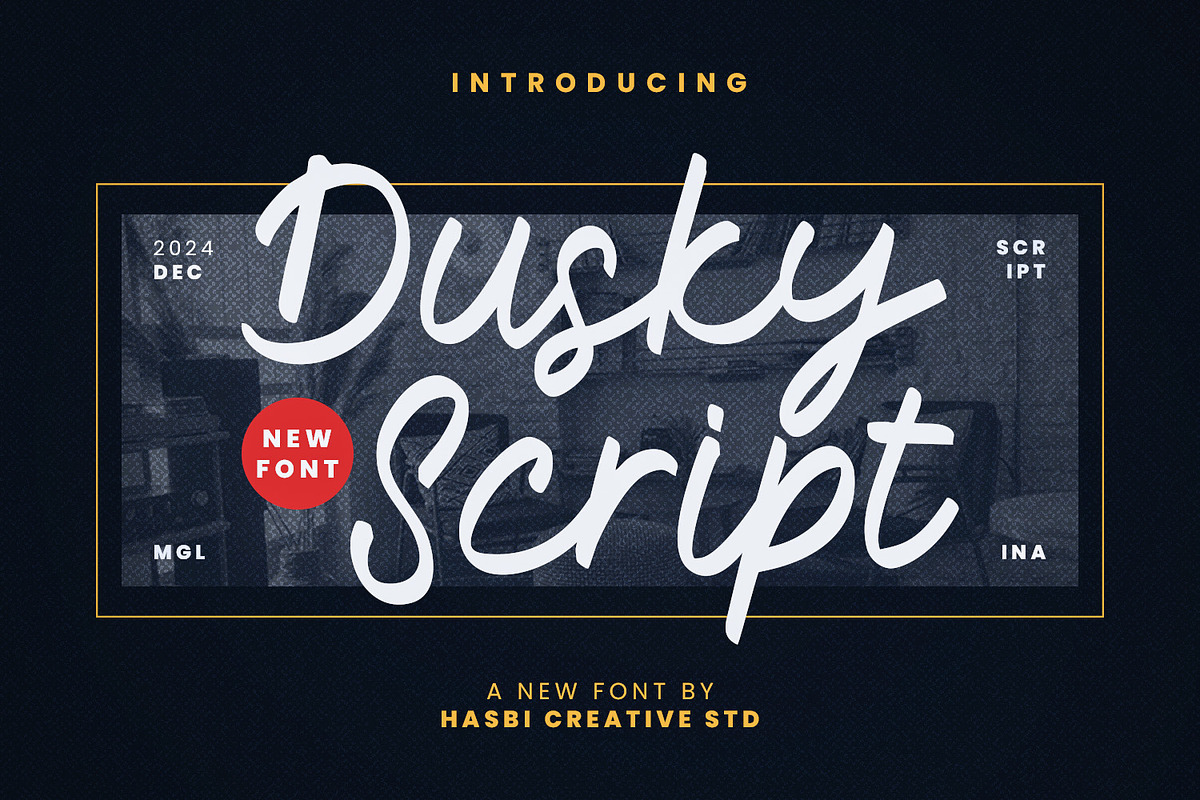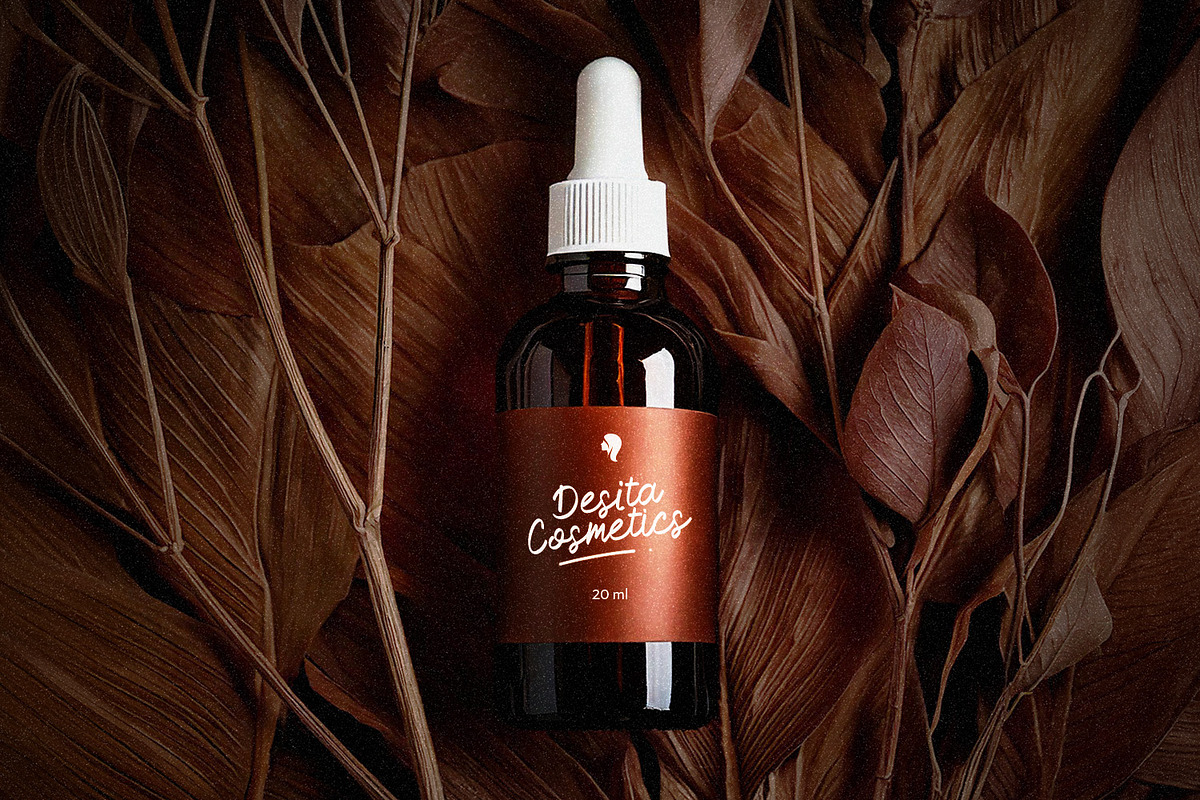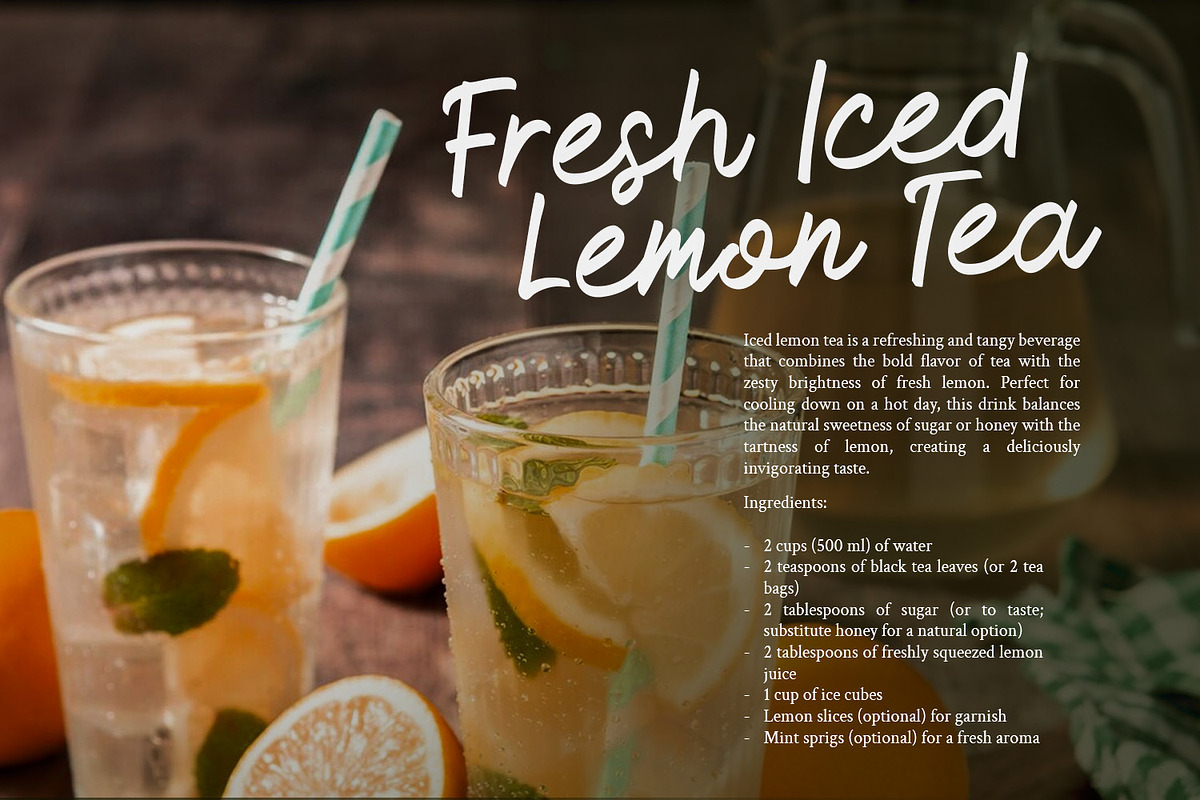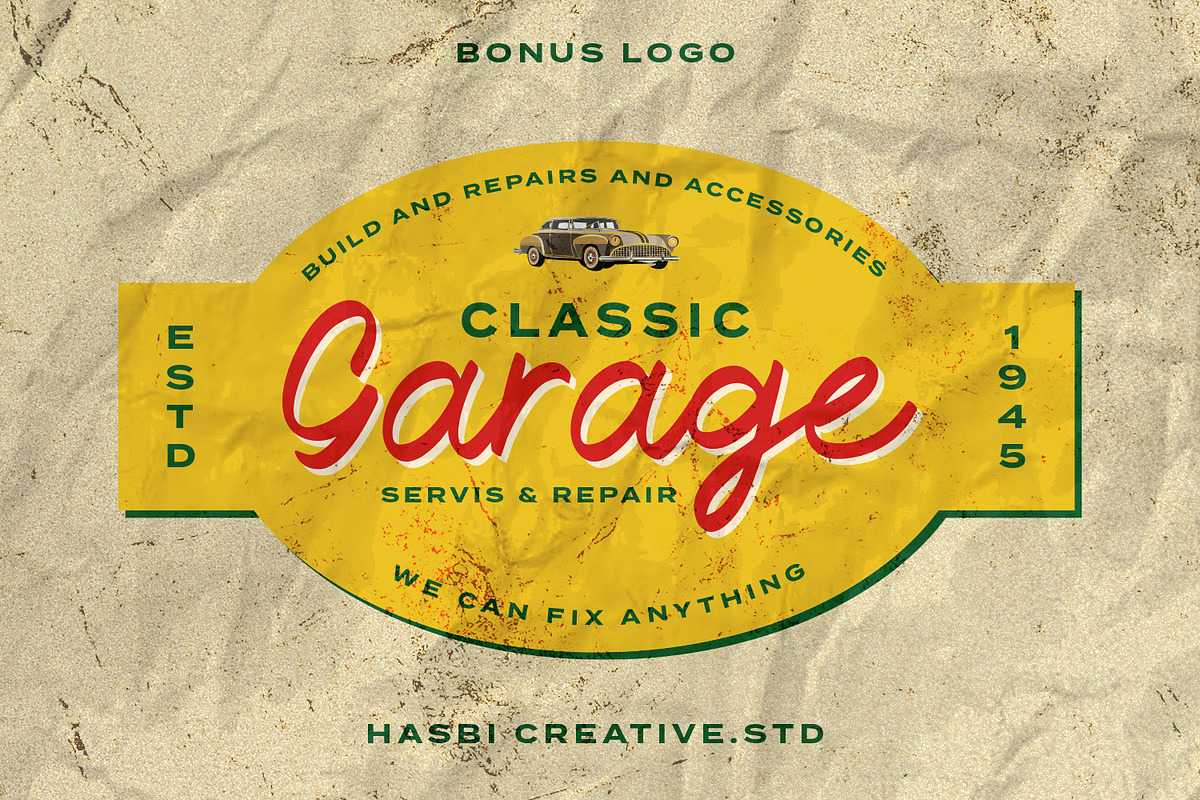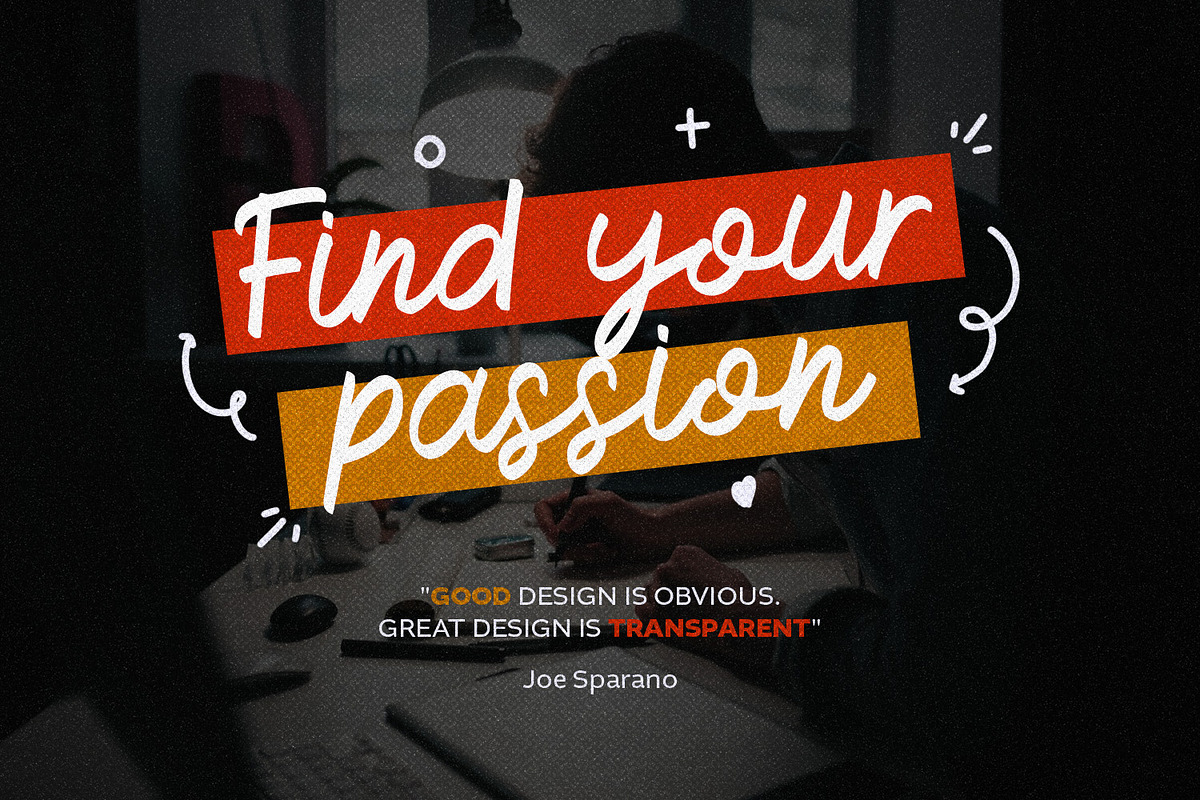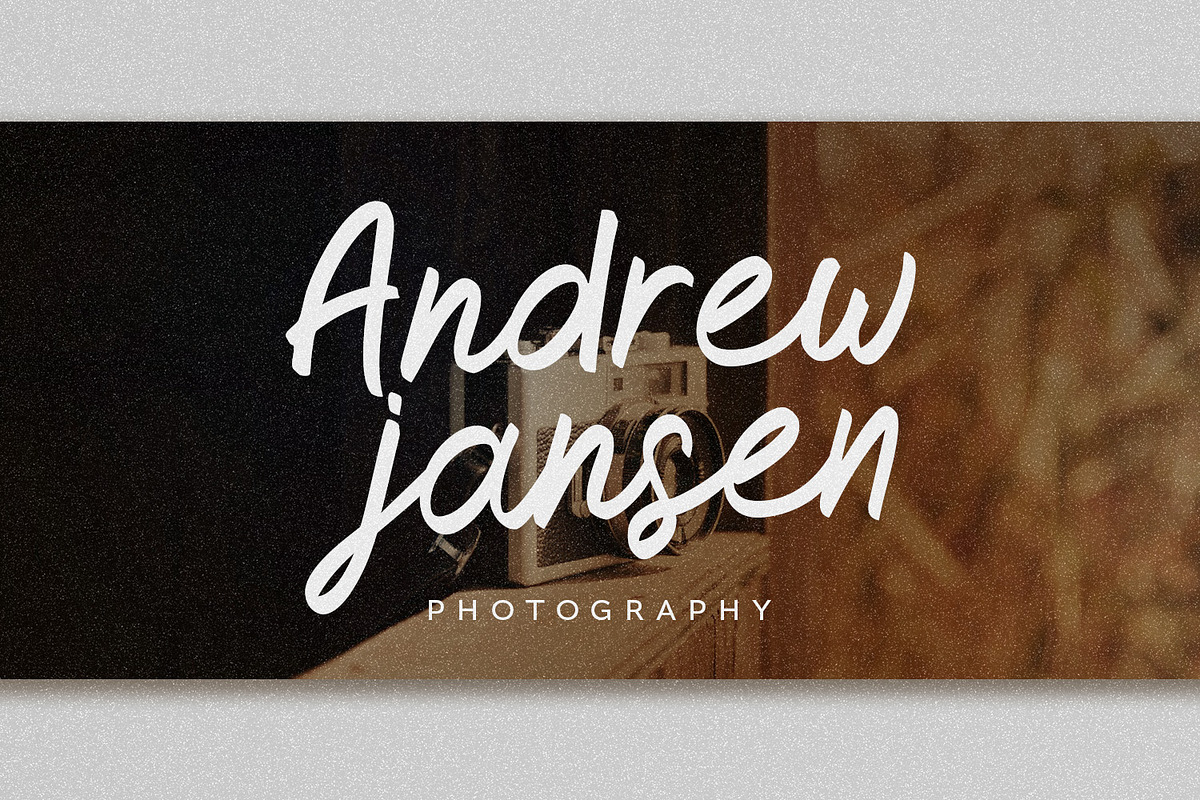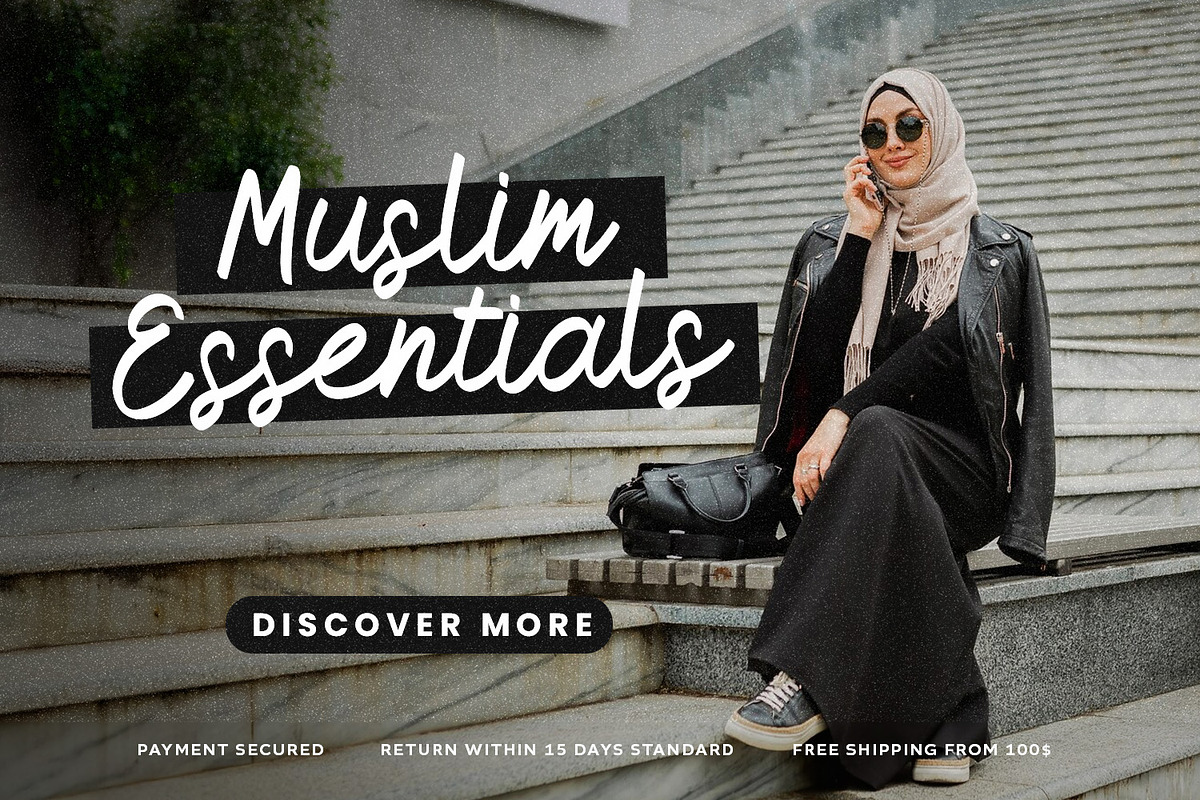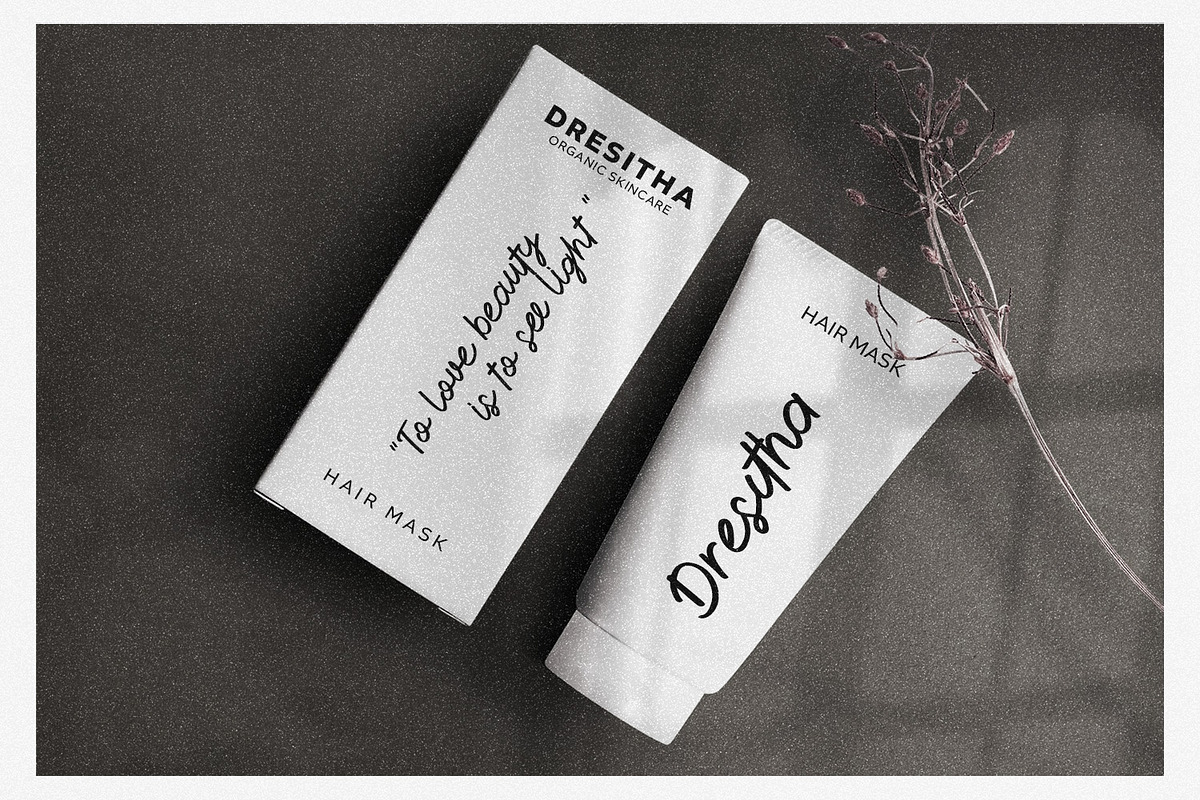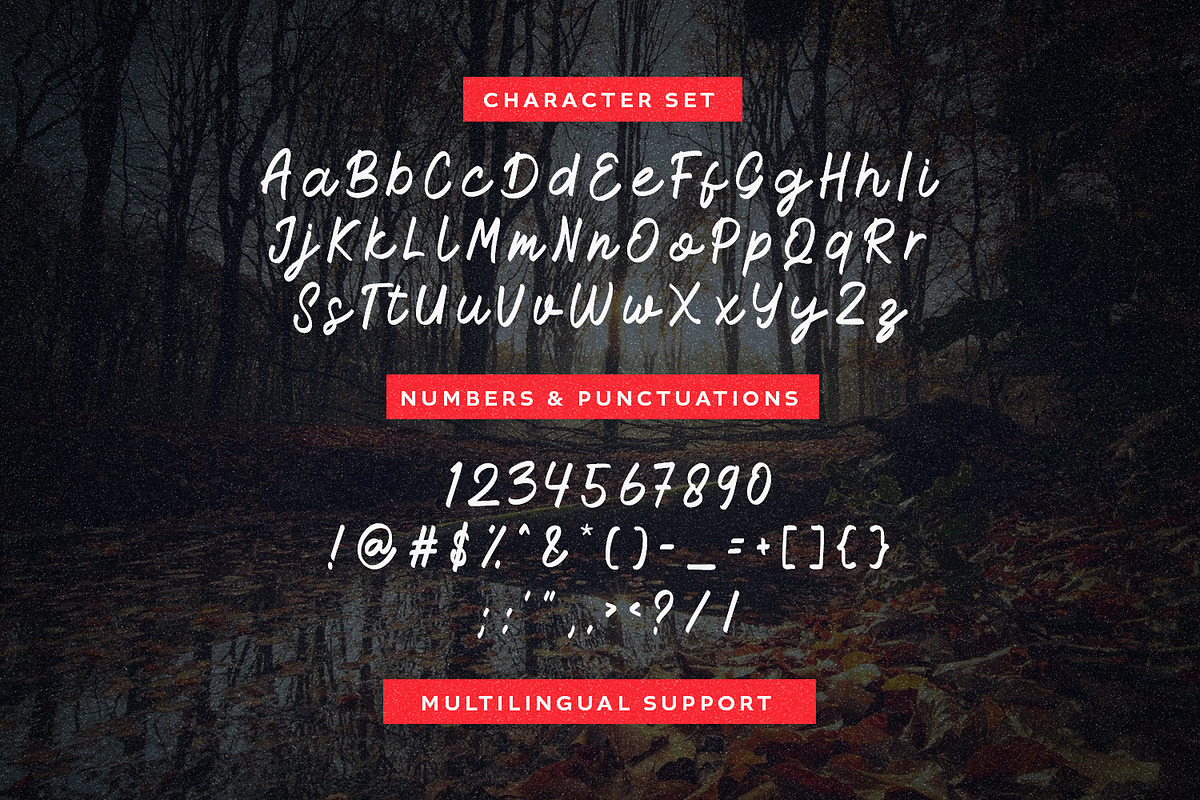
Dusky - Script
Dusky Script is a beautifully crafted script font inspired by classic calligraphy. With its flowing lines and intricate details, this font adds a touch of vintage charm to any design. Perfect for creating elegant logos, invitations, and other design projects that require a sophisticated and timeless aesthetic.
This font is
- Easy to use
- Versatile
- It comes with a variety of glyphs and alternates
Dusky - Script is a great choice for designers who want to create beautiful, timeless designs.